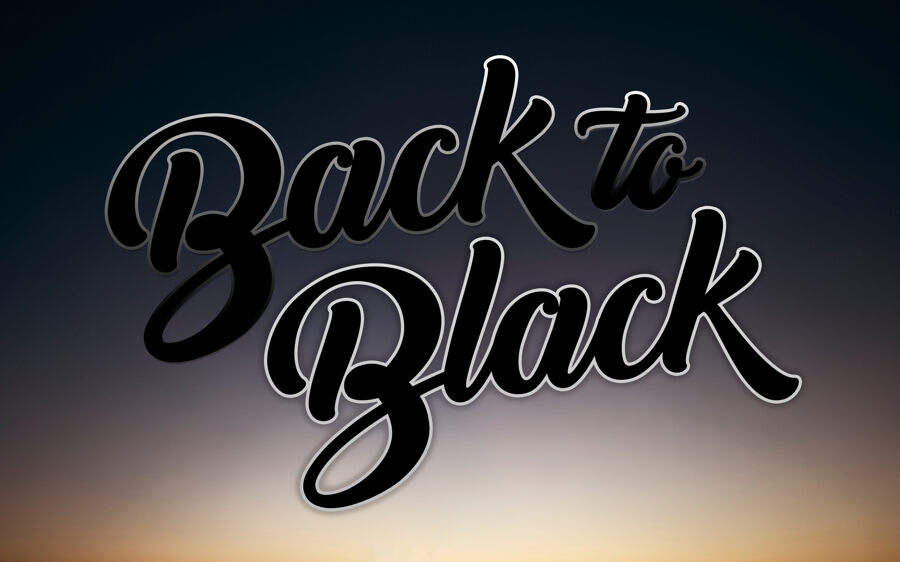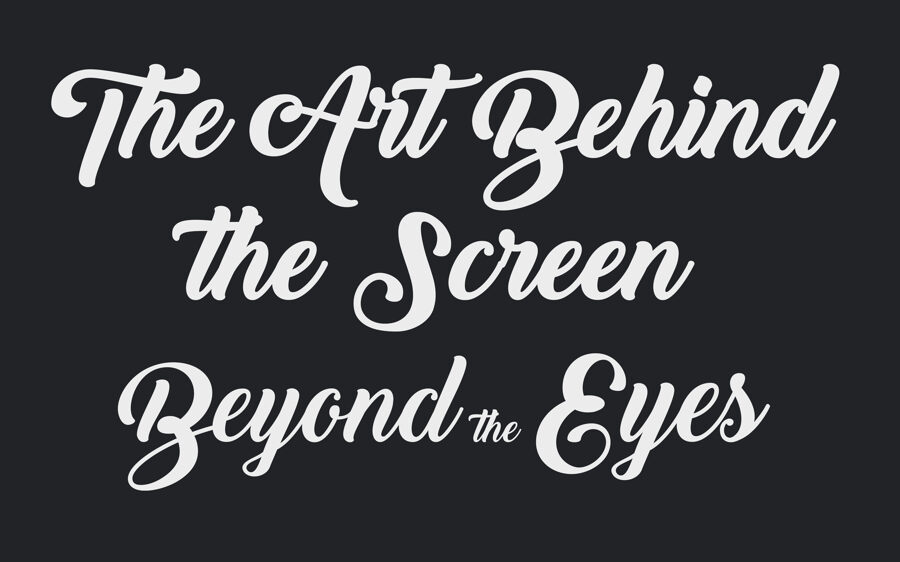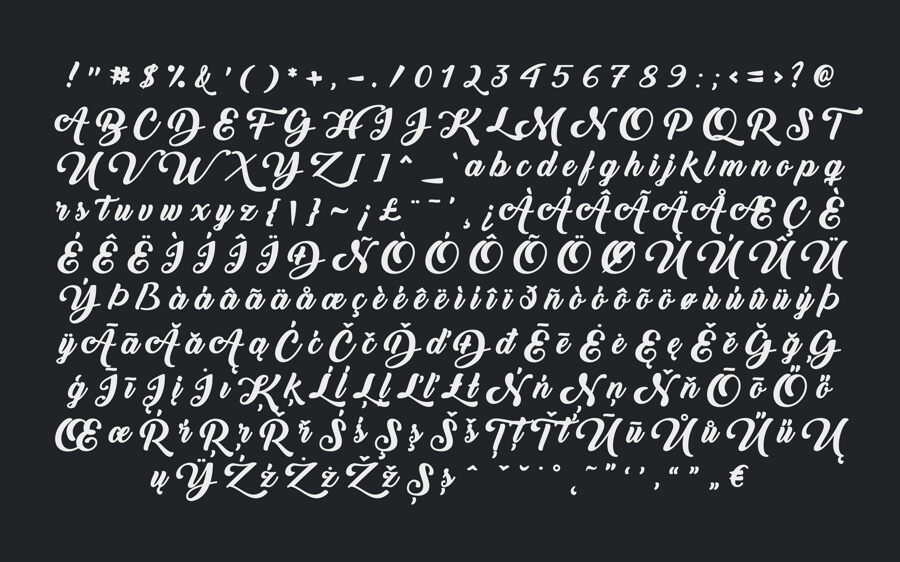
Back to Black is a beautifully expressive calligraphy font designed by Misti’s Fonts. Its flowing strokes, elegant curves, and handwritten character create a romantic yet confident appearance.
Available in regular and bold styles, it is ideal for logos, invitations, branding, quotes, social media graphics, and decorative headlines that need a personal, sophisticated touch.